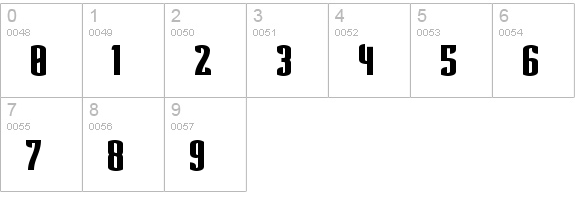
Verve Std Black is a maximum-weight, dramatic variant in the Verve typeface family \xE2\x80\x94 well suited to maximum-impact headlines, posters, and packaging.
Verve Std Black is a font that exudes sophistication and elegance. With its bold and powerful design, it commands attention and makes a statement in any project or design. The strong and sleek letterforms of Verve Std Black are perfect for headlines, titles, and branding materials. This font combines a contemporary style with a classic touch, making it versatile and suitable for a wide range of design applications. Whether you're creating a sleek logo for a high-end brand, designing a striking poster, or crafting a modern website, Verve Std Black will elevate your design to new heights. One of the best features of Verve Std Black is that it is freely available to download at FontsMarket.com. This means that you can access this stunning font without any cost or restrictions. It's a fantastic opportunity to add a touch of elegance and professionalism to your design projects, without breaking the bank. So why wait? Download Verve Std Black today from FontsMarket.com and unleash the power of this stylish and versatile font in your designs. Whether you're a graphic designer, a marketer, or someone who simply appreciates beautiful typography, Verve Std Black is a font that you don't want to miss.